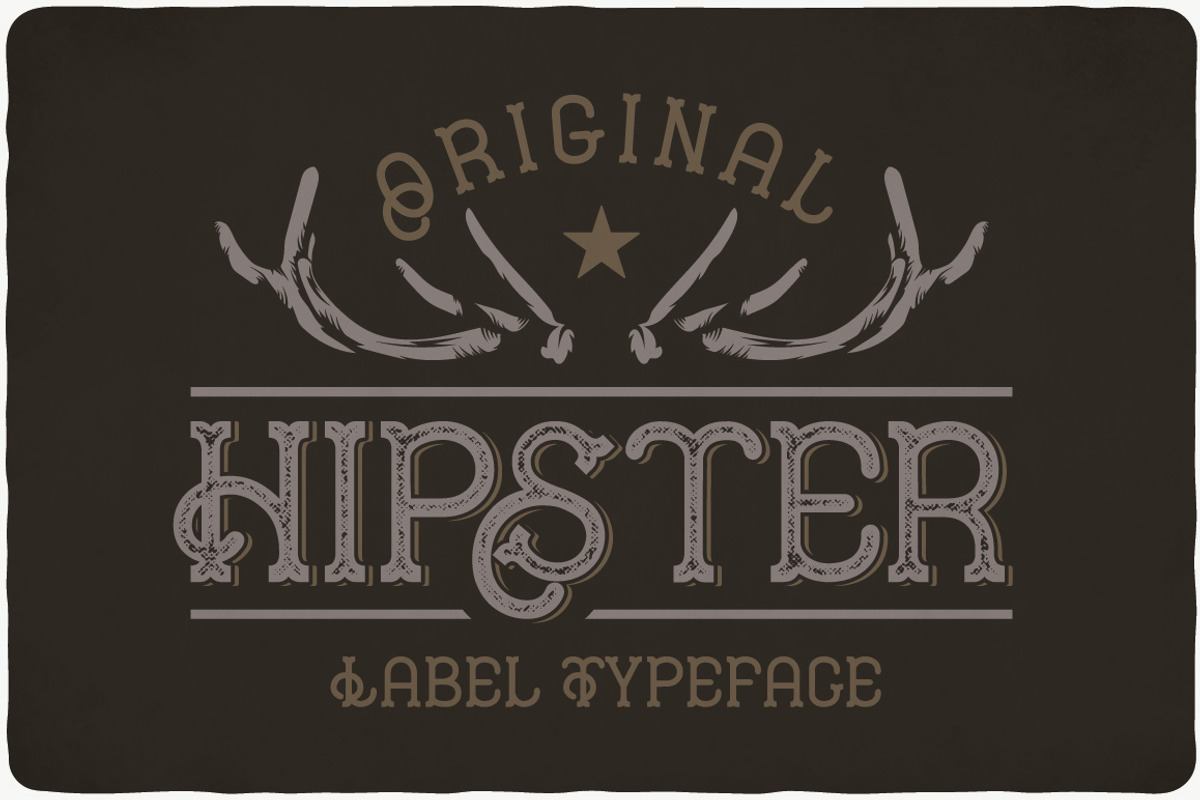
Hipster Typeface Free Download
Hipster Typeface Free Download is a trendy, retro-inspired font designed to bring a cool, vintage vibe to your creative projects. With its clean lines and laid-back style, this typeface is perfect for lifestyle branding, social media graphics, t-shirt designs, coffee shop menus, posters, and any artwork that embraces that effortlessly stylish, urban aesthetic.
The design of Hipster Typeface fuses modern minimalism with a touch of retro flair, making it versatile enough for both contemporary and nostalgic themes. It works beautifully for headlines, logos, and branding elements where personality and visual impact matter most.
This font includes uppercase characters, numbers, basic punctuation, and multilingual support. It’s compatible with all major design software and ready to give your projects that authentic, indie look.